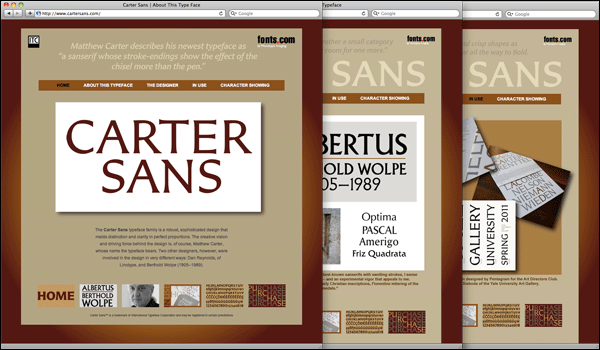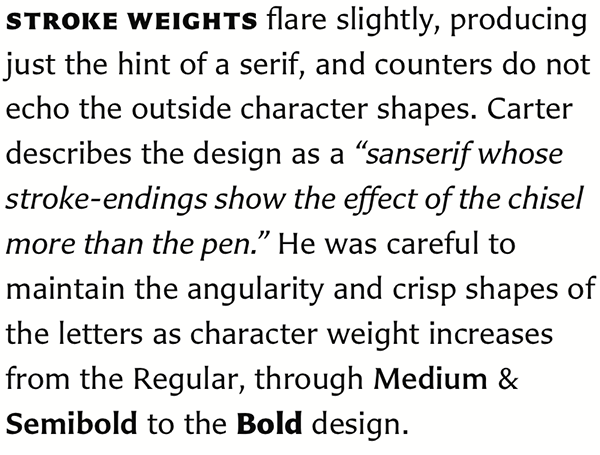
Earlier this week, Monotype Imaging released Carter Sans: a new typeface family from Matthew Carter, designed for International Typeface Corporation. I happily worked on the Carter Sans project for several months in 2010, and am glad to see the fonts’ release.
Above, setting of Carter Sans medium. Text from Berthold Wolpe: a retrospective survey. London: the Victoria and Albert Museum and Faber & Faber Ltd (1980)
“‘We approached Matthew, one of the world’s most accomplished type designers, to head the design of a new sans serif family for our ITC library,’ said Allan Haley, director of words and letters at Monotype Imaging. ‘The result is Carter Sans—an exceptionally beautiful design that reflects a spirit of distinction and authenticity, perfectly suited to our ITC collection.’
“Carter Sans is a ‘sans serif with stroke endings that show the effect of the chisel more than the pen,’ according to Carter. He was inspired by the work of his friend, the late Berthold Wolpe, and integrated the humanistic overtones, hearty shapes and the bold simplicity of Wolpe’s Albertus® typeface, which Wolpe completed for Monotype in 1940, modeling characters to resemble letters carved into bronze. While designing Carter Sans, Carter collaborated with Dan Reynolds, a senior type designer at Monotype Imaging’s Linotype subsidiary. Reynolds oversaw character set development and font production and also designed the small caps to complement Carter’s old style figures. ‘Carter Sans is ideally suited for display copy as well as text composition, thanks to the close collaboration between Matthew and Dan,’ Haley said. …
The typeface has already seen some pre-release use, first by Pentagram in their work for a New York ADC Gala in November, and also for the Yale University Art Gallery. I am quite curious to see how designers will take to the typeface, and what sorts of projects they will use it in.
Carter Sans is a face with an inscriptional quality to it. The family has eight fonts: regular, italic, medium, medium italic, semibold, semibold italic, bold, and bold italic. All fonts include small caps. Each font has proportional oldstyle figures as the default figure style, but tabular OsFs, proportional and tabular lining figures, small cap figures, superiors, inferiors, numerators and denominators are available in each font via OpenType features.
Settings of Carter Sans bold italic and semibold. Texts from an old Dwiggins passage published in the Linotype Matrix during the 1950s